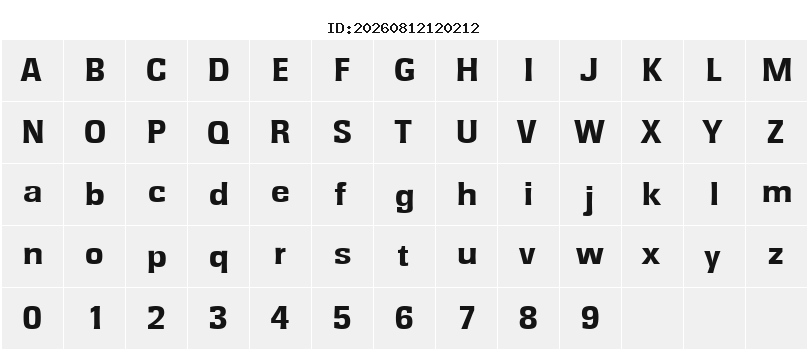
• Font Name: Rochester-Serial-ExtraBold
• Full Font Name: Rochester-Serial-ExtraBold-Regular
• PostScript Name: Rochester-Serial-ExtraBold-Regular
About Rochester-Serial-ExtraBold.ttf
Rochester-Serial-ExtraBold.ttf is a modern, elegant sans-serif font designed for ultimate readability and visual harmony. Perfect for branding, headlines, web design, and print materials.